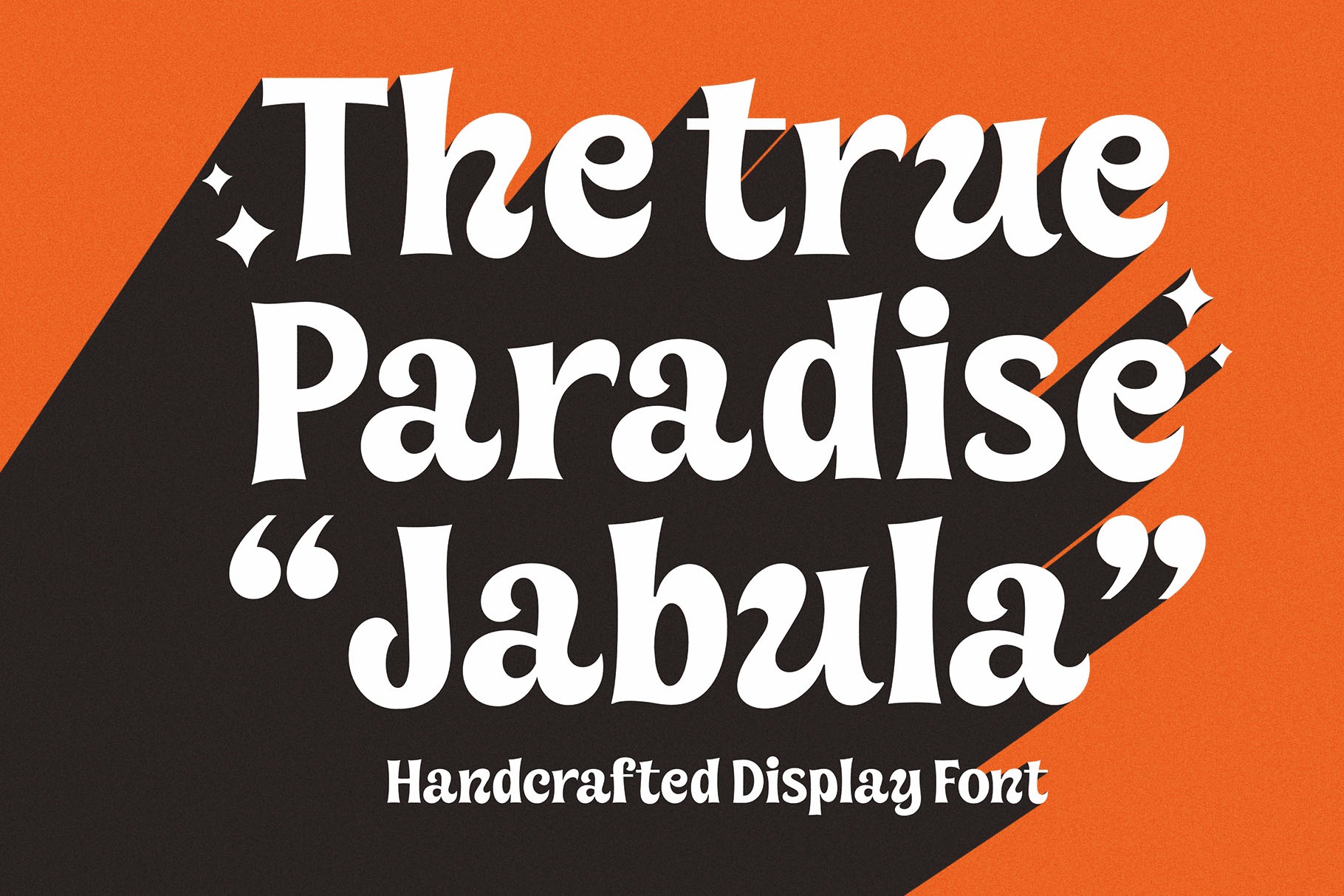
Jabula Font
Jabula Font is a premium-quality font developed to enhance your work with a polished, modern, and visually elevated look. Jabula Handcrafted Display is a bold serif font with an organic, handcrafted touch. Its playful curves and dynamic edges bring a lively personality to any design — from retro posters and packaging to eye-catching headlines. Perfect for brands that want to stand out with a strong yet friendly vibe.